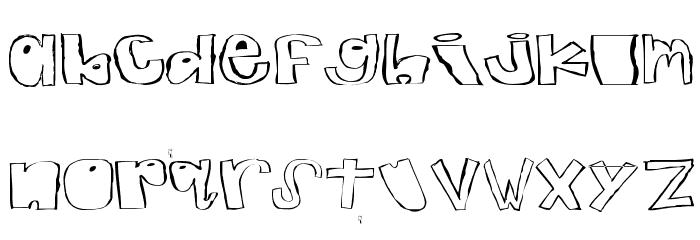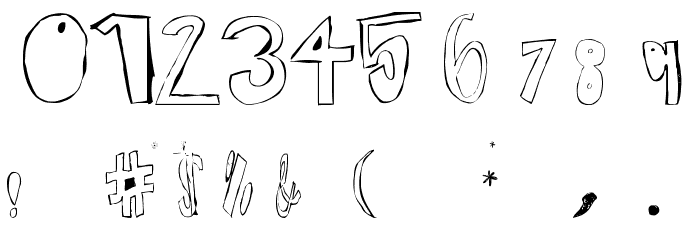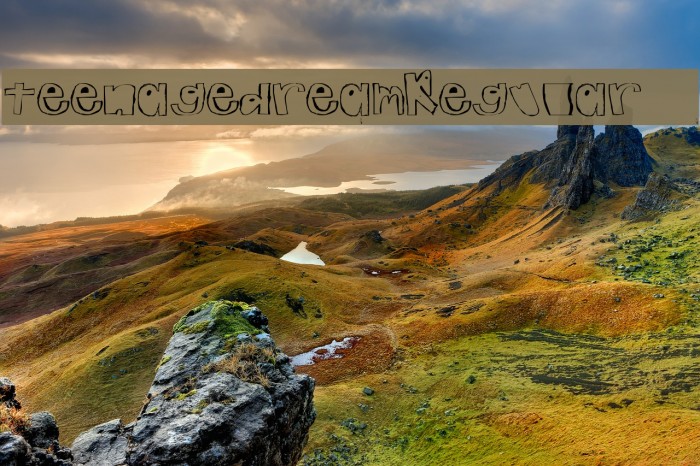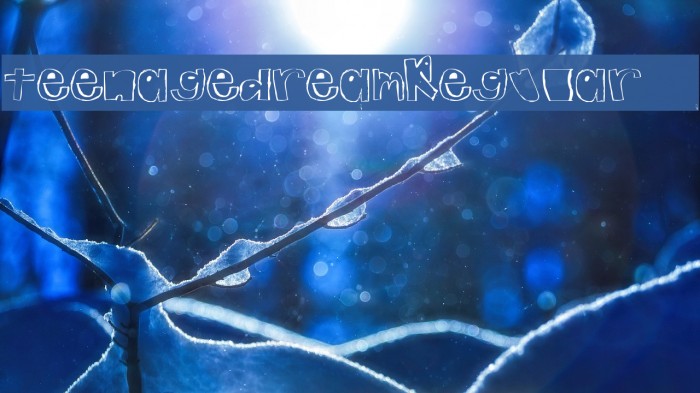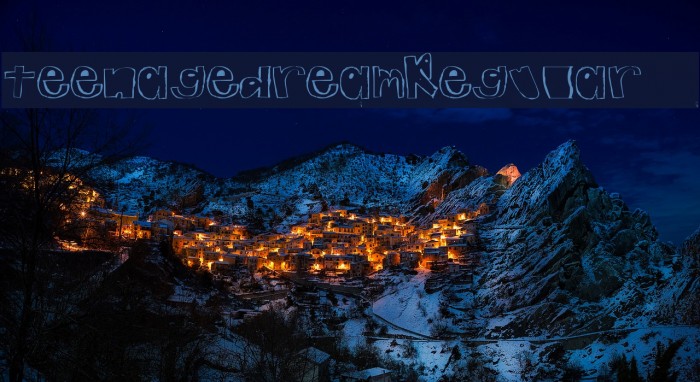
teenage dreamRegular Font
This playful and whimsical font features an eclectic mix of bold, irregular shapes that give it a hand-drawn, artistic feel. The uppercase letters are characterized by their quirky, uneven lines and varying thickness, creating a sense of movement and energy. The lowercase letters maintain this playful style, with some characters featuring exaggerated curves and loops. Numbers and special characters follow the same lively design, adding to the font's overall charm. This font is perfect for projects that require a fun and informal touch, making it ideal for creative designs, children's books, or playful branding.
A playful, hand-drawn font with irregular, bold shapes and a whimsical style.
- Proposed Projects: Ideal for children's books, creative designs, playful branding, and informal invitations.
- Overall Style: Whimsical, Playful, Artistic
- Use Case: Headlines, Logos, Creative Designs